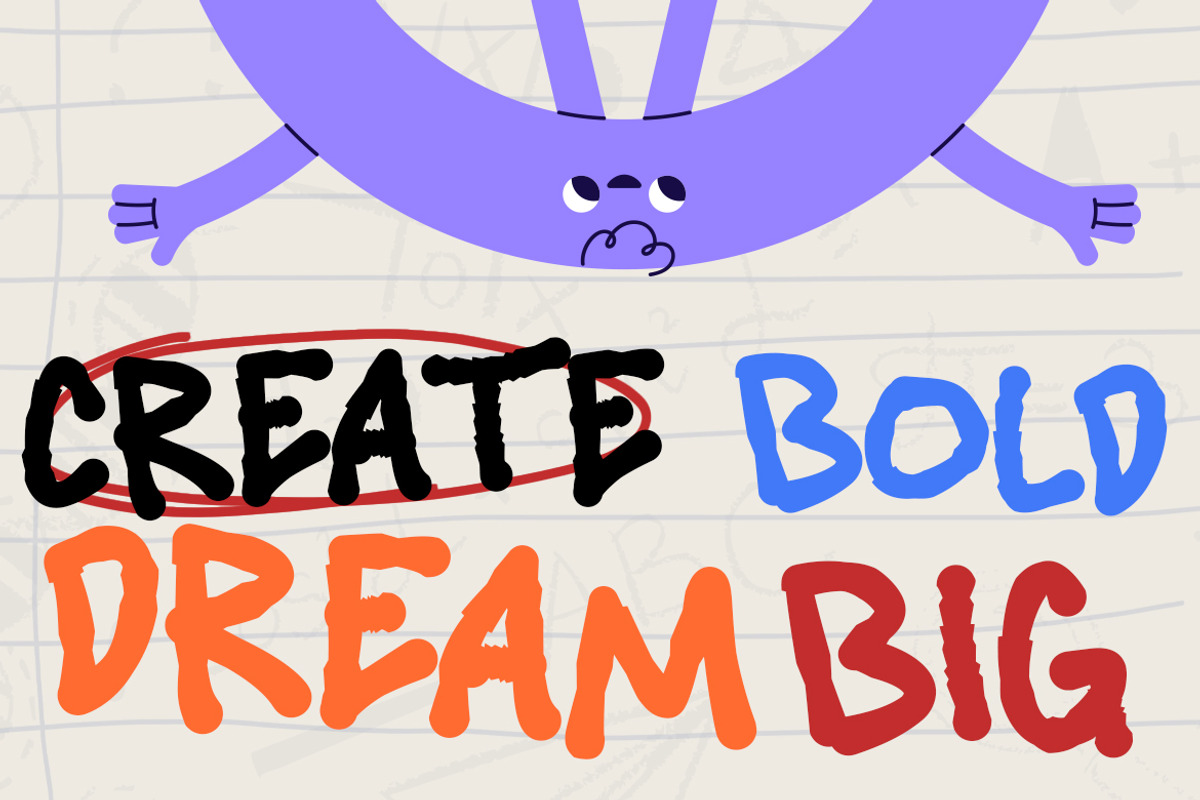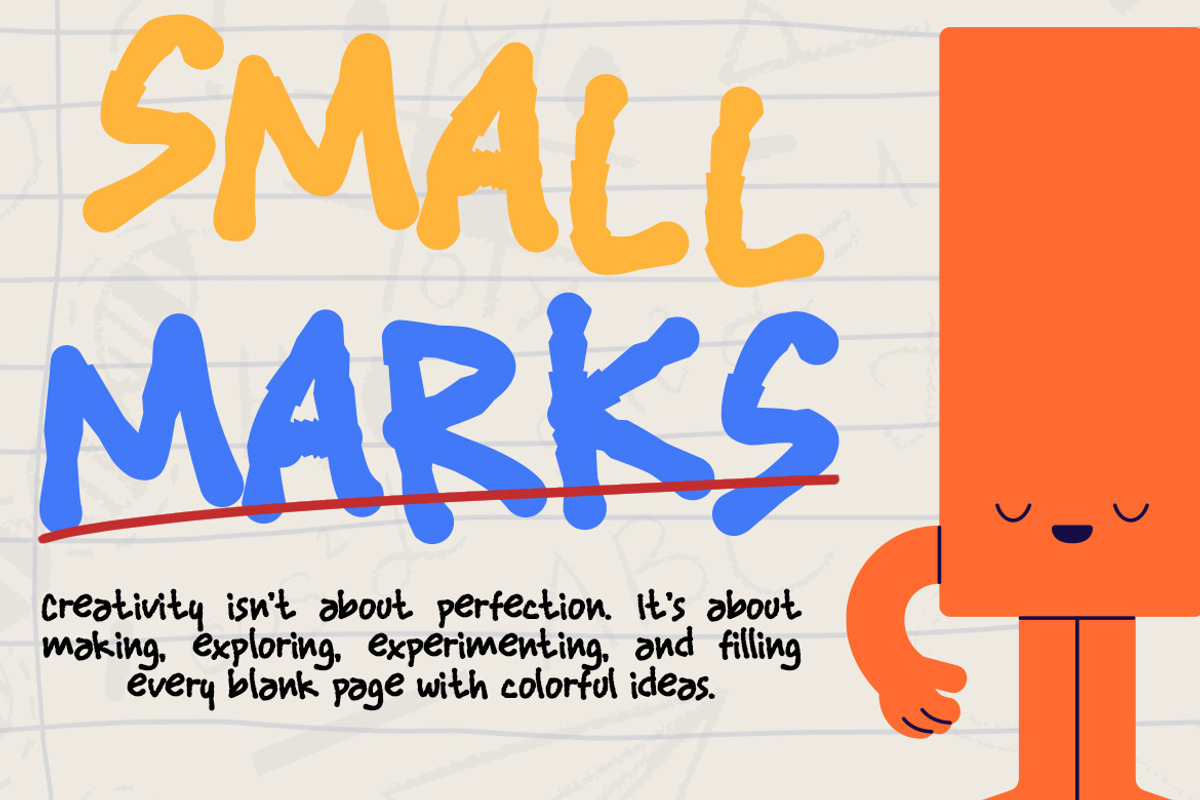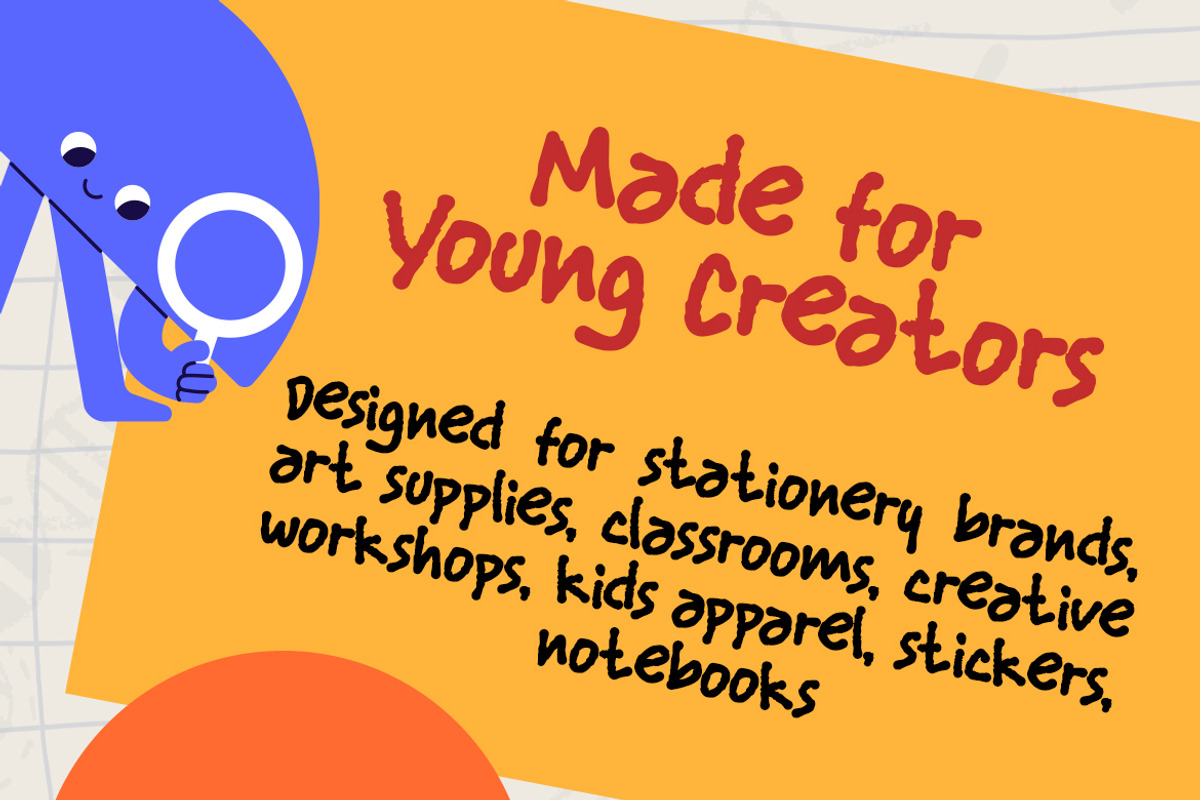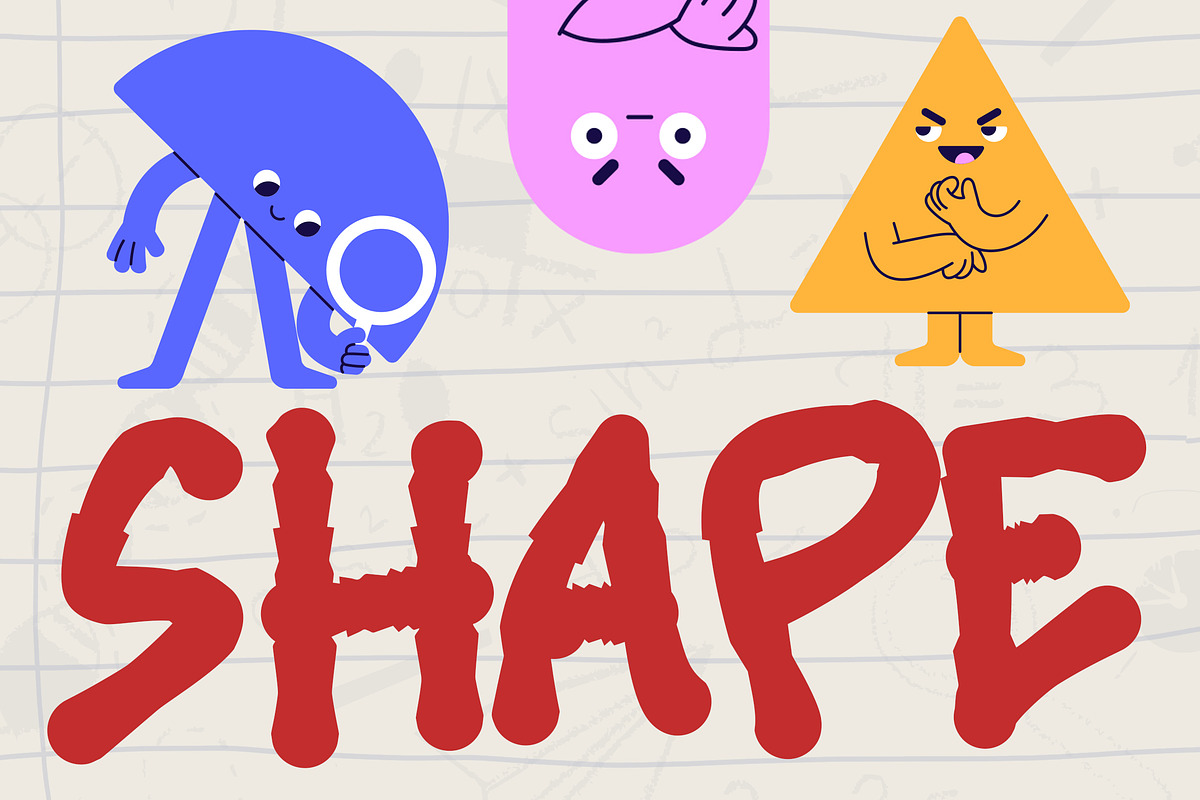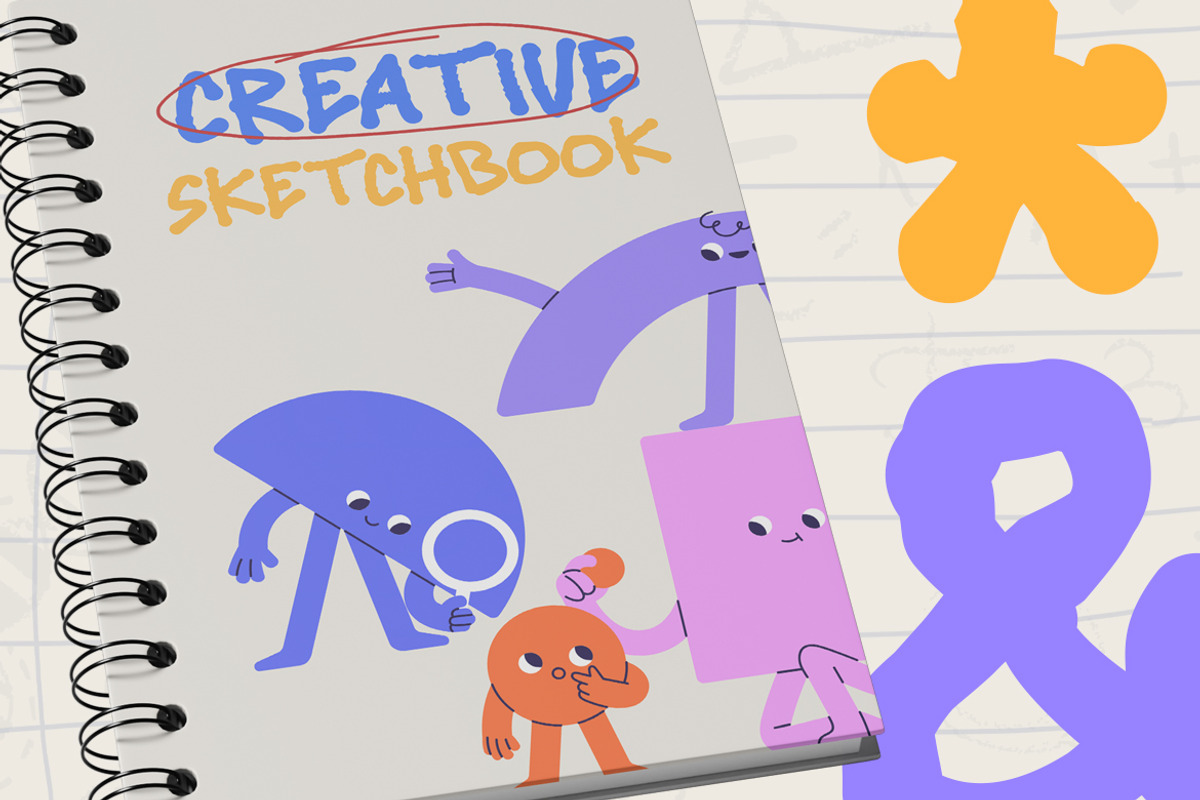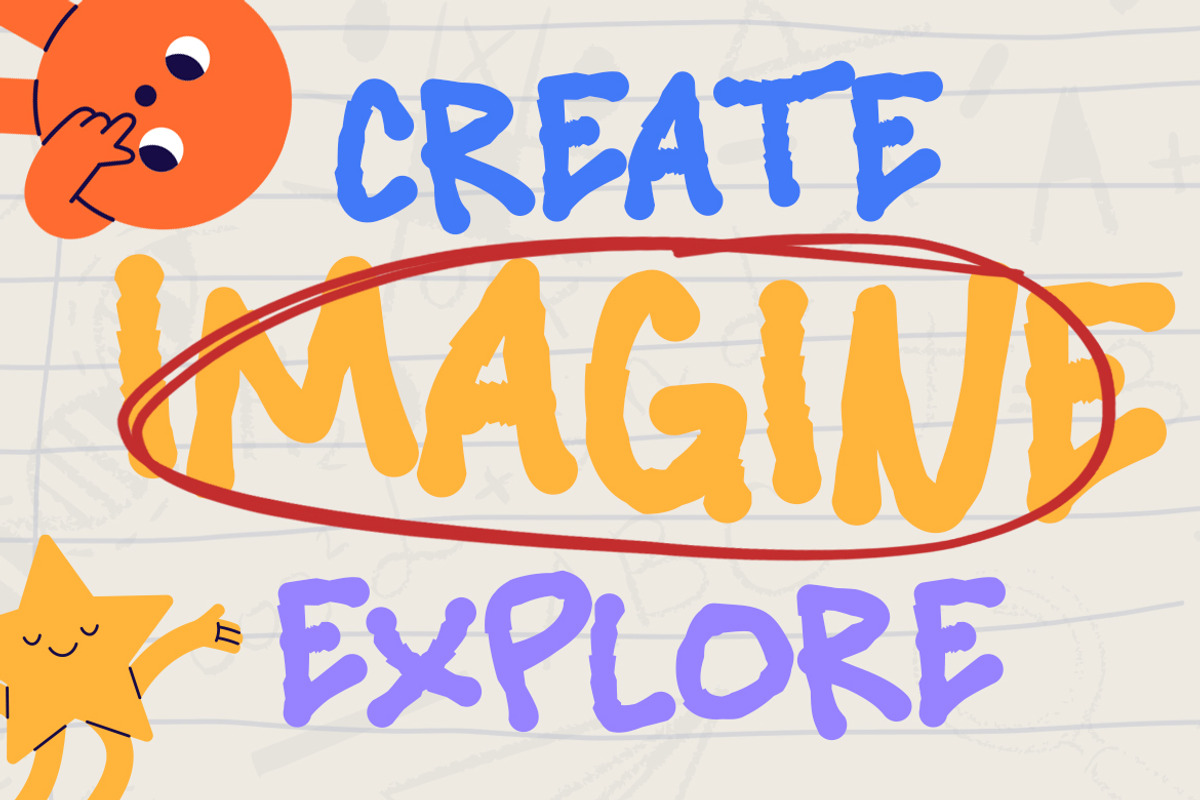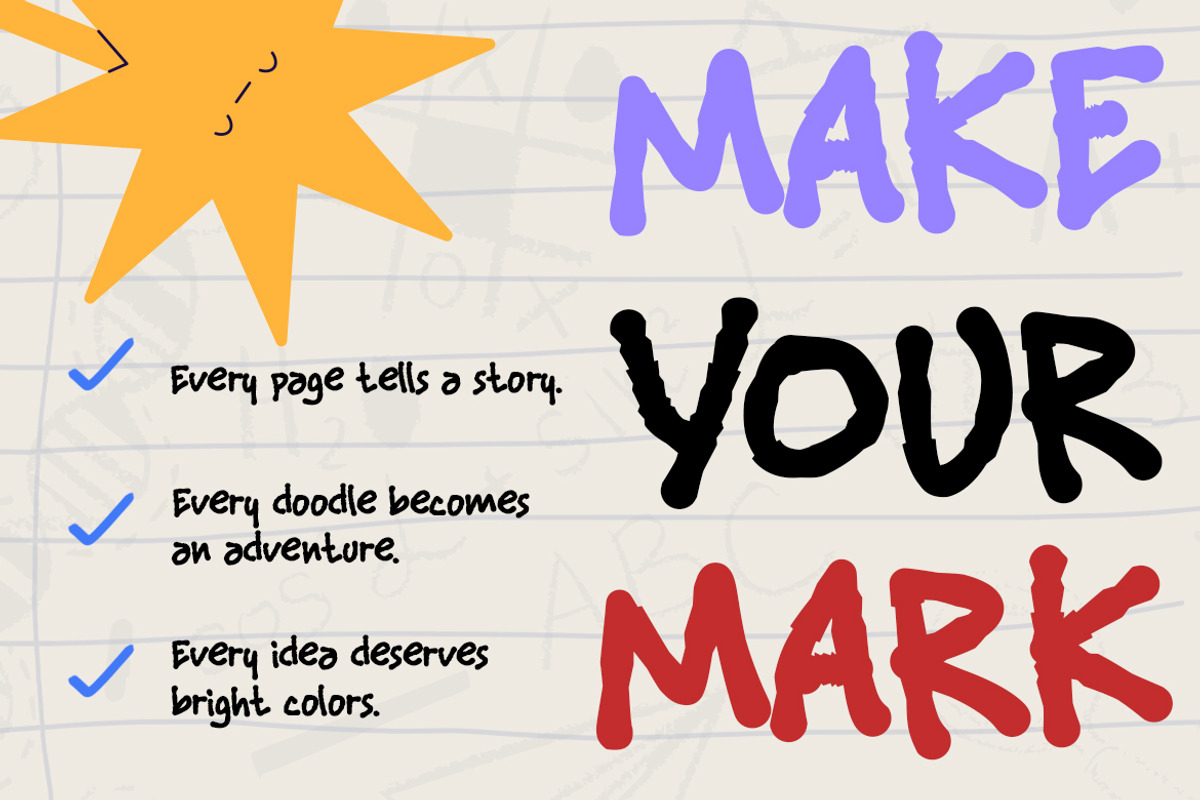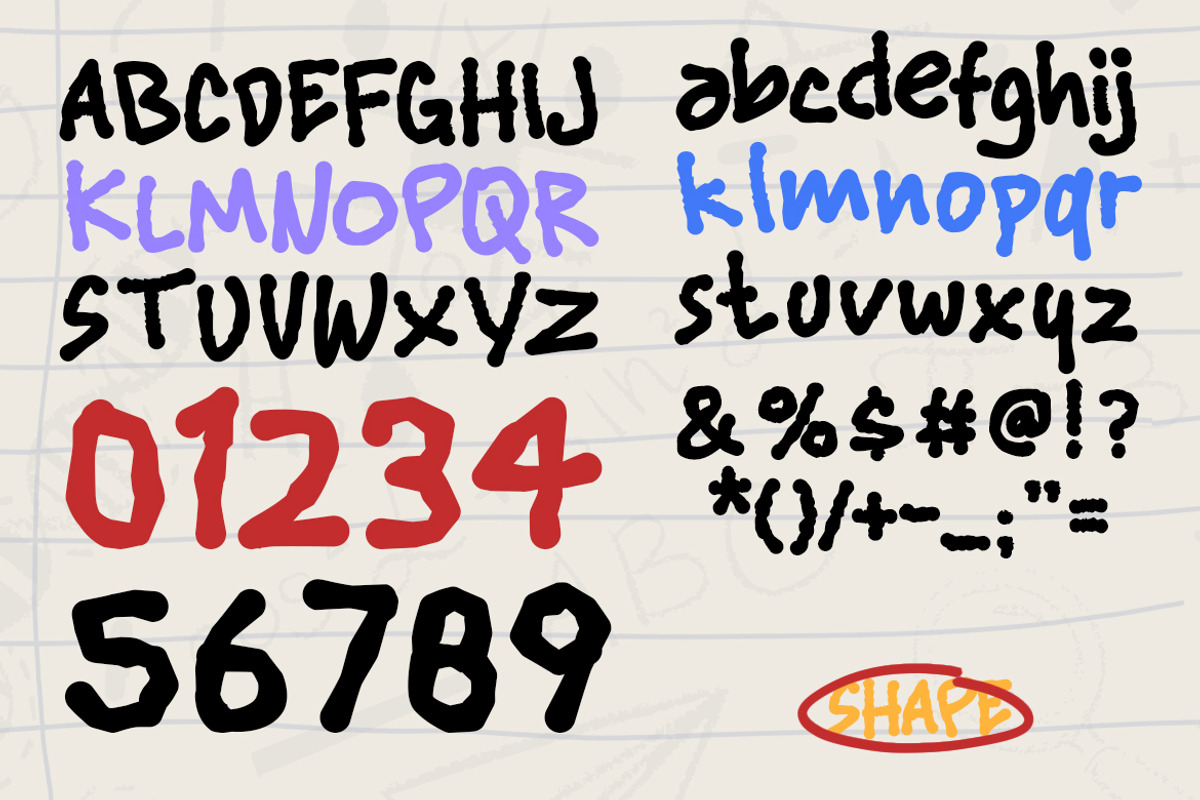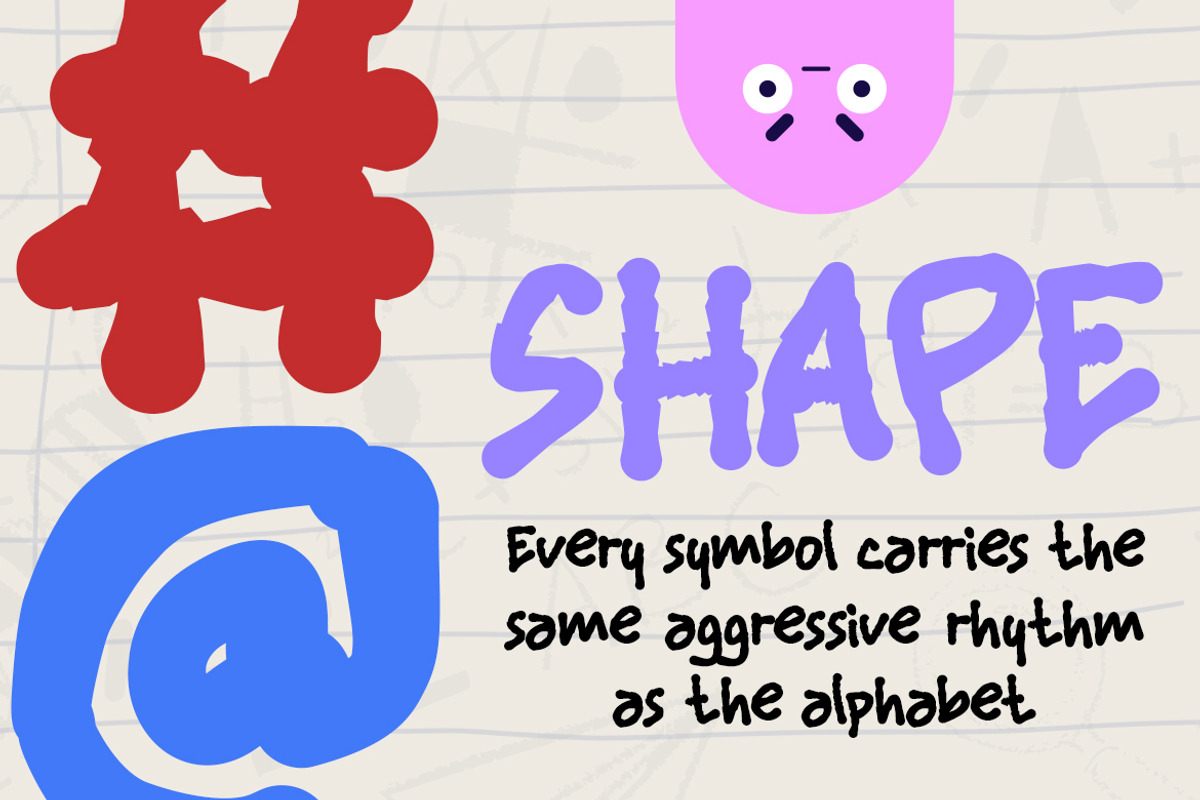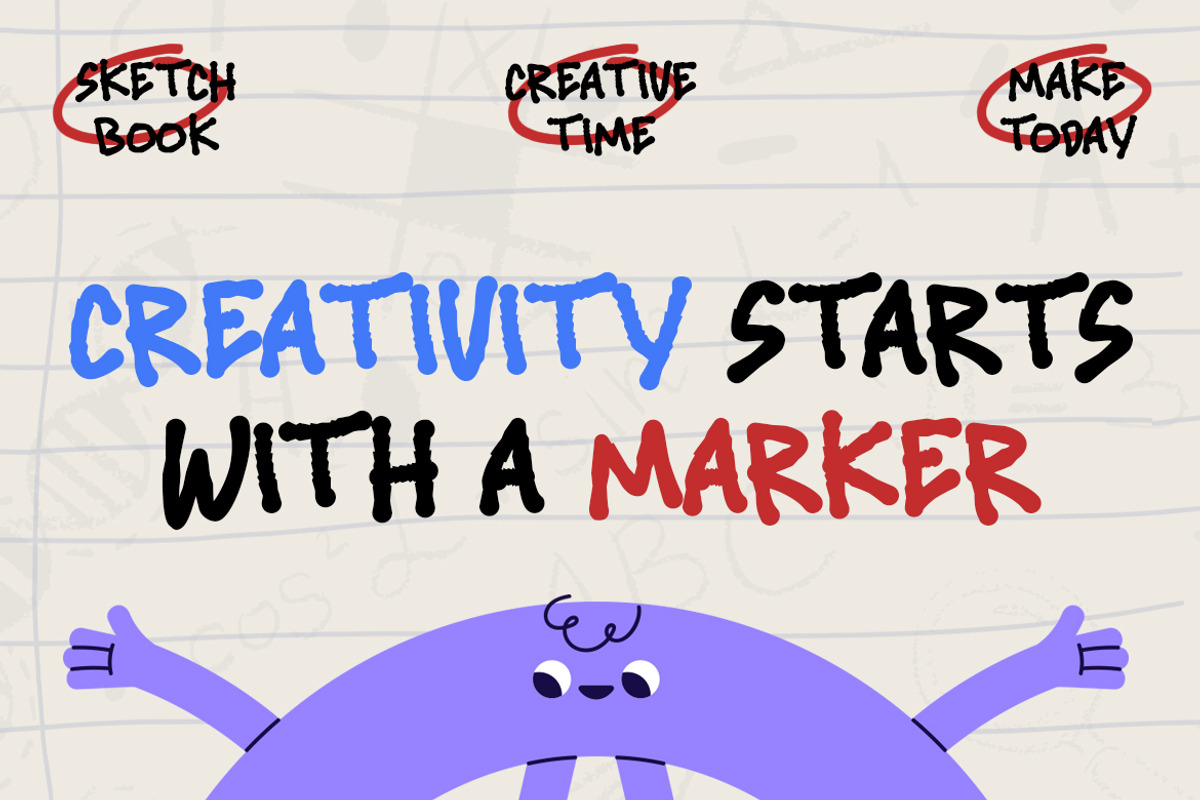
Shape
Shape – Bold Marker Display Font for Creative Kids Designs
Kids Font Shape is a playful marker display font that transforms ordinary text into bold, expressive artwork. Inspired by hand-drawn doodles and colorful creativity, it features energetic brush strokes, rounded shapes, and natural imperfections. Moreover, every character feels lively and approachable, while maintaining excellent readability. As a result, your headlines instantly become more engaging and memorable.